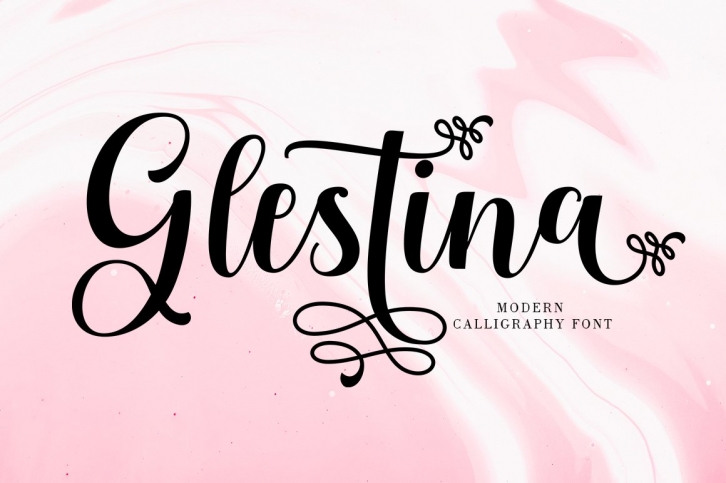
Glestina is a beautiful font that was designed by Aqeela Studio. It's a great choice for designers and creatives who need such a font. It was released on March 2, 2021 and the file size is 18.21 MB. Glestina may give a more youthful, expressive and casual look to your project. It is a very beautiful, refined, elegant, and high-quality font.